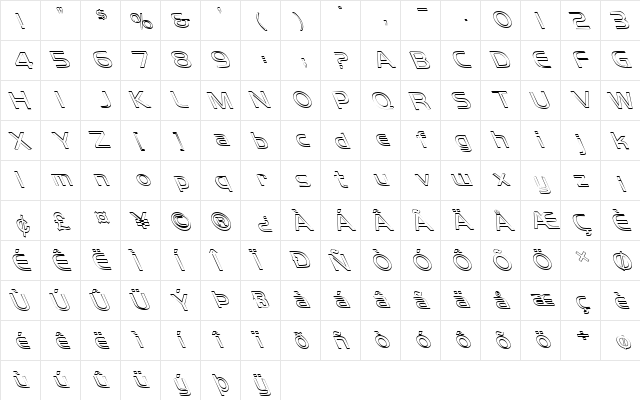
FZ BASIC 8 HOLLOW LEFTY Normal
FZ BASIC 8 HOLLOW LEFTY offers clean, dependable letterforms without strong stylistic allegiance, making it a practical choice for designers who need flexibility.